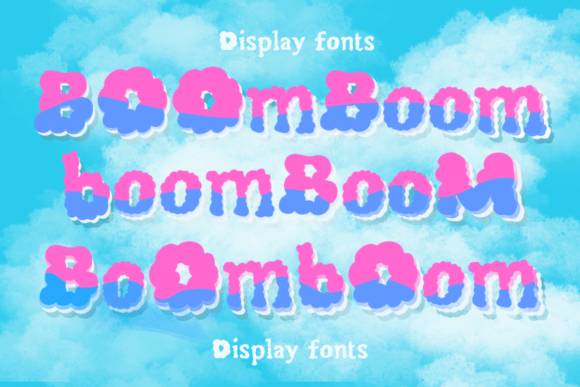
Introducing Boomboom Font: The Ultimate Display Font for Modern Design
In the world of typography, a good font can make all the difference in creating a lasting impression. For designers and crafters looking to add a touch of modern charisma to their work, Boomboom Font is the perfect solution. This bold and captivating display font is designed to grab attention and elevate your designs to the next level.
What is Boomboom Font?
BoomBoom is a carefully crafted display font that exudes confidence and style. Its unique and modern design makes it perfect for a wide range of applications, from headlines and logos to social media graphics, flyers, and cards. With Boomboom Font, you can add a touch of sophistication and elegance to your designs, making them stand out in a crowded digital landscape.
Key Features of Boomboom Font
- Bold and Captivating: Boomboom Font is designed to make a statement. Its bold and captivating design ensures that your message gets noticed.
- Modern Charisma: This font is infused with a modern charisma that appeals to contemporary design sensibilities.
- Versatile: Boomboom Font can be used for a wide range of applications, including headlines, logos, social media graphics, flyers, cards, and more.
- Easy to Read: Despite its bold design, Boomboom Font remains easy to read, making it perfect for conveying your message.
Uses of Boomboom Font
BoomBoom Font is incredibly versatile and can be used in various design projects, including:
- Headlines: Use Boomboom Font to create attention-grabbing headlines that draw readers in.
- Logos: Create a lasting impression with a bold and modern logo designed with Boomboom Font.
- Social Media Graphics: Elevate your social media presence with eye-catching graphics featuring Boomboom Font.
- Flyers and Brochures: Use Boomboom Font to create visually appealing flyers and brochures that stand out.
- Cards: Add a touch of elegance to your greeting cards, invitations, and more with Boomboom Font.
Why Choose Boomboom Font?
With so many fonts available, why choose Boomboom Font? Here are a few compelling reasons:
- Unique Design: Boomboom Font boasts a unique and modern design that sets it apart from other fonts.
- High-Quality: This font is crafted with attention to detail, ensuring a high-quality design that looks great in any context.
- Versatile: This font can be used in a wide range of applications, making it a great addition to any designer’s toolkit.
Tips for Using Boomboom Font
To get the most out of Boomboom Font, here are a few tips:
- Use it Sparingly: Boomboom Font is bold and attention-grabbing, so use it sparingly to avoid overwhelming your design.
- Pair it with Other Fonts: Experiment with pairing Boomboom Font with other fonts to create a unique and visually appealing design.
- Adjust the Size: Play with the font size to create visual hierarchy and emphasize your message.
In conclusion, Boomboom Font is a bold and captivating display font that is perfect for designers and crafters looking to add a touch of modern charisma to their work. With its unique design, versatility, and ease of use, Boomboom Font is an excellent addition to any designer’s toolkit. Whether you’re creating headlines, logos, social media graphics, or more, Boomboom Font is sure to make a lasting impression.